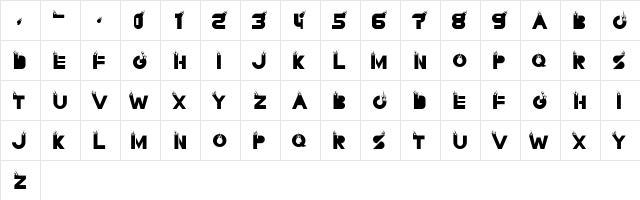
Destroyed Regular
Design Context for Destroyed Typeface
Destroyed is a composed and adaptable typeface that performs quietly and consistently across a wide range of design contexts.